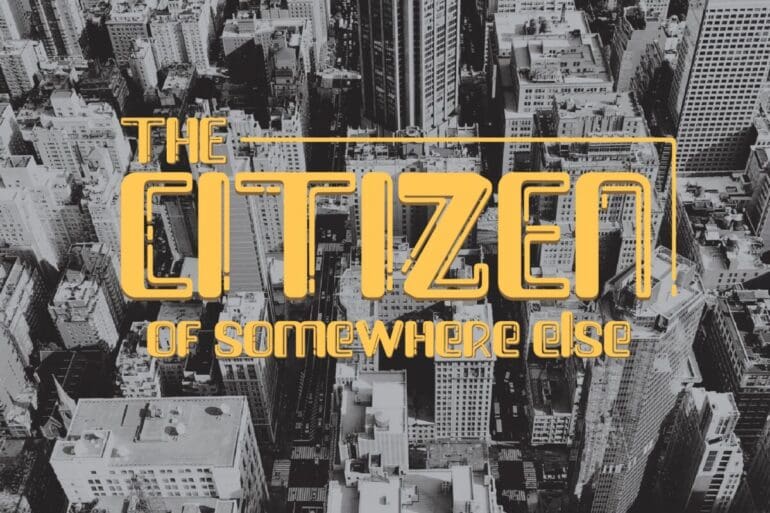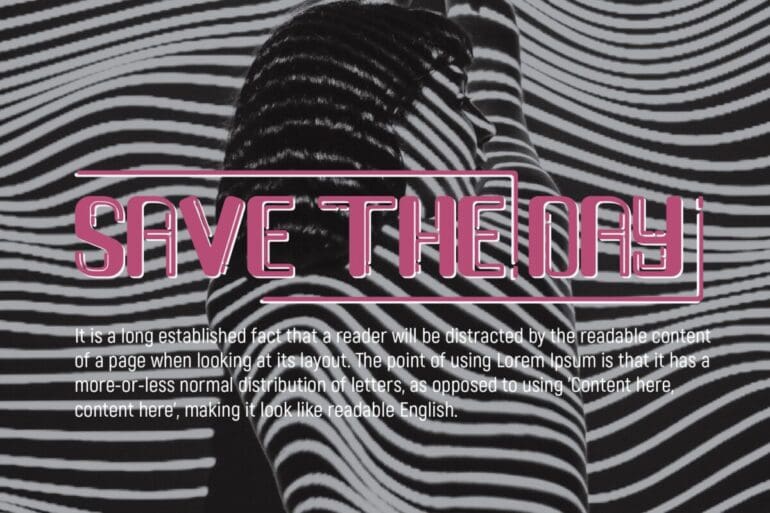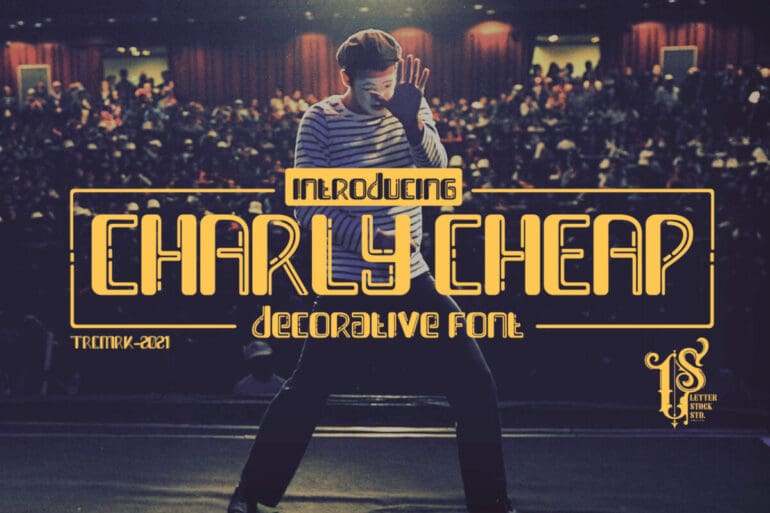
Charly Cheap Font
Charly Cheap Font. This pair was inspired by the playful poster design that I saw on some coffee shops, It was crafted by hand especially to add a natural handmade feeling in its brand identity than I make it clean with pentool.